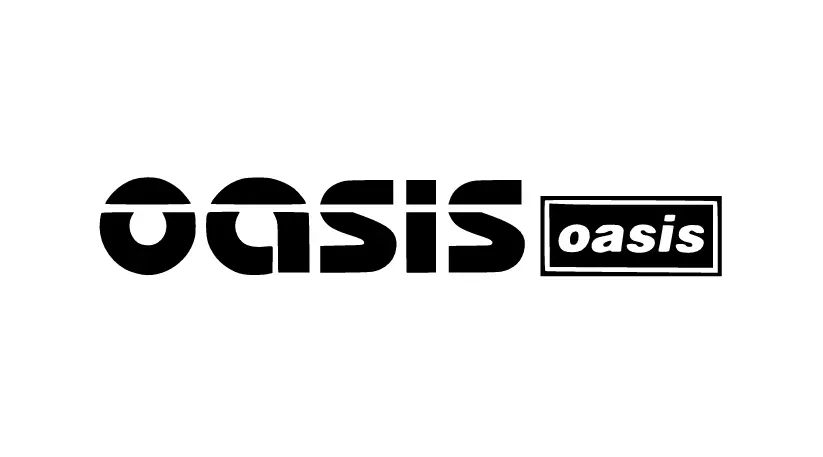
Quick answer: Font sites say the Oasis logo is set in Helvetica Black Italic, a commercial face. The band has not named it. Free heavy matches on this page: Archivo Bold and Rubik Bold.
About the Oasis font
Oasis are an English rock band. Their debut album, Definitely Maybe, was released on 29 August 1994 by Creation Records (Wikipedia).
Font sites say the lowercase logo is Helvetica Black Italic (Fontmeme; pixelframe). We did not find the band or the logo’s designer confirming it.
History of the Oasis lettering
- 1993: Oasis sign to Creation Records (Wikipedia).
- 29 August 1994: Definitely Maybe is released (Wikipedia).
Where the Oasis font is used
- The band’s logo, as set out by font sites (Fontmeme).
- Fan posters and merchandise in the band’s 1990s look, with free heavy fonts (fan use).
Fonts similar to Oasis
1. Helvetica Black Oblique
- Designer: Max Miedinger, who designed the Helvetica family
- Details: This style appears on early releases such as “Definitely Maybe,” “(What’s the Story) Morning Glory?,” and “Be Here Now.” Its bold, slanted look matches the band’s energy.
2. Oasis by Nathan Barry
- Designer: Nathan Barry
- Details: A fan created this font. It resembles the type used on the fourth studio album, “Standing on the Shoulder of Giants.” It is a close match to the original Oasis look.
3. Bands and Musicians CHMC Font
- Details: This font includes a dingbat version of the Oasis logo. Dingbat fonts map symbols to keys, so check the character map before you type with it.
What font is the Oasis logo?
Font sites say Helvetica Black Italic. The band has not confirmed it in the sources we read.